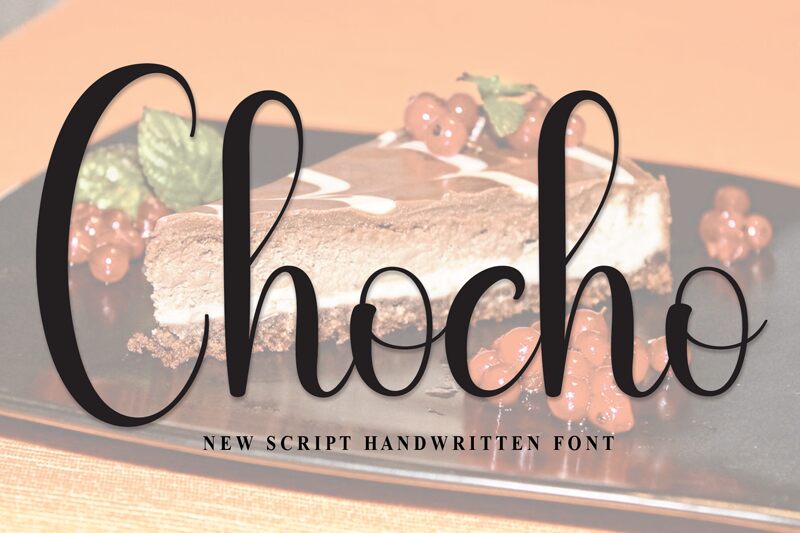
Chocho
Chocho, crafted by the talented Andi Moz, is a captivating handwritten font that effortlessly combines elegance with a touch of whimsy. Its delicate strokes and condensed form give it a sophisticated yet approachable charm, making it perfect for adding personality to a variety of projects. The script flows gracefully, embodying an effortless grace that's both modern and timeless.
Chocho's unique aesthetic makes it ideal for greeting cards, invitations, branding materials, and social media graphics. This font not only stands out with its distinctive style but also enhances the visual appeal of any text it graces. Whether you're designing for personal projects or professional endeavors, Chocho promises to add an exquisite touch that will captivate your audience’s attention.